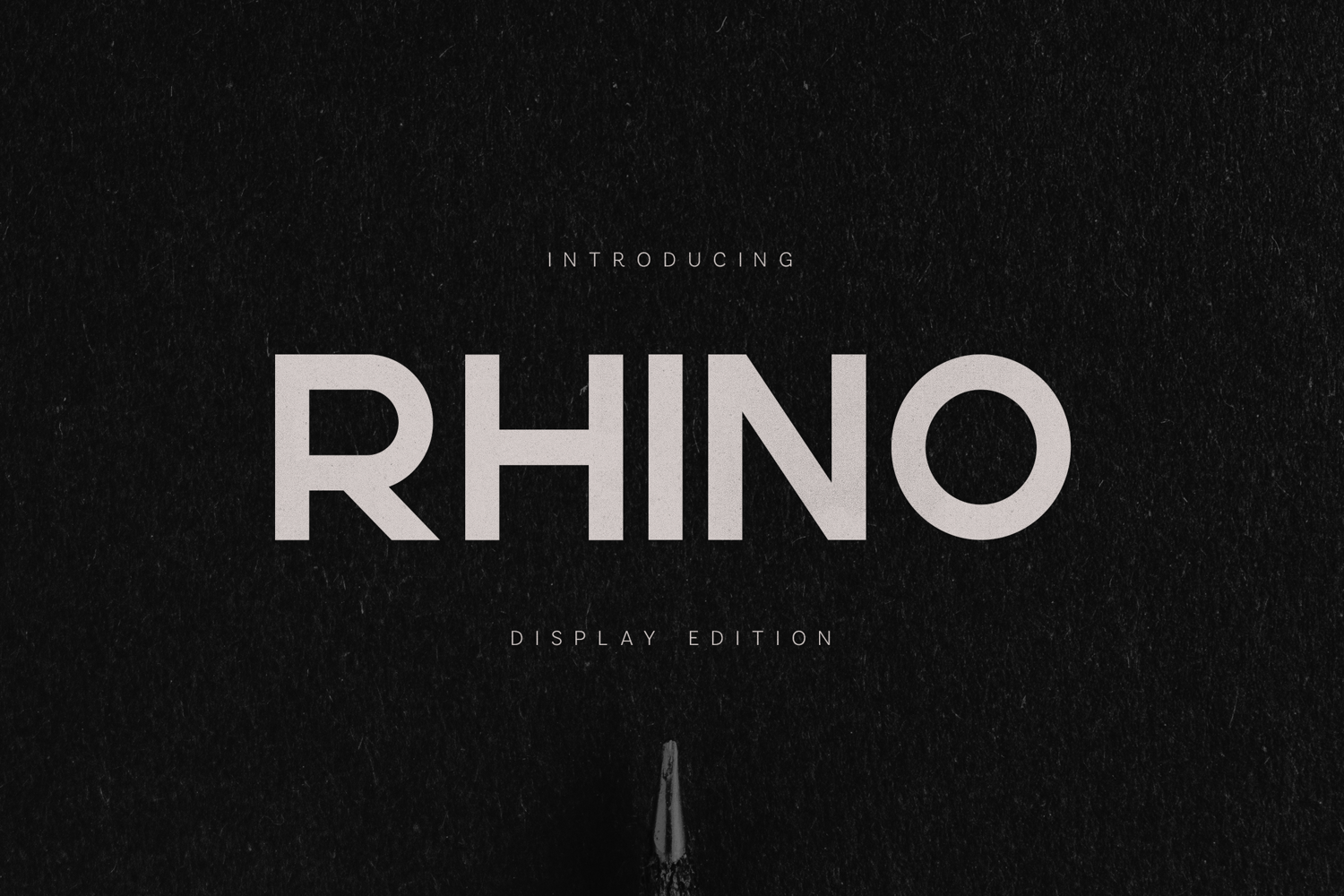
Rhino Bold Modern Display Sans Serif Font
RHINO is a bold modern display sans serif font built for strong visual impact and confident typography. With solid letterforms, clean geometry, and powerful proportions, RHINO is ideal for posters, headlines, branding, logos, packaging, editorial layouts, social media graphics, and statement-driven designs.
Designed to stand out, RHINO delivers clarity and strength while maintaining a contemporary, minimal aesthetic. Its bold presence makes it perfect for large-scale text, striking compositions, and modern visual identities.
RHINO includes a full character set with multilingual support, numerals, and punctuation, making it suitable for both print and digital applications.
RHINO is created for designers who need boldness, structure, and unmistakable presence in their typography.